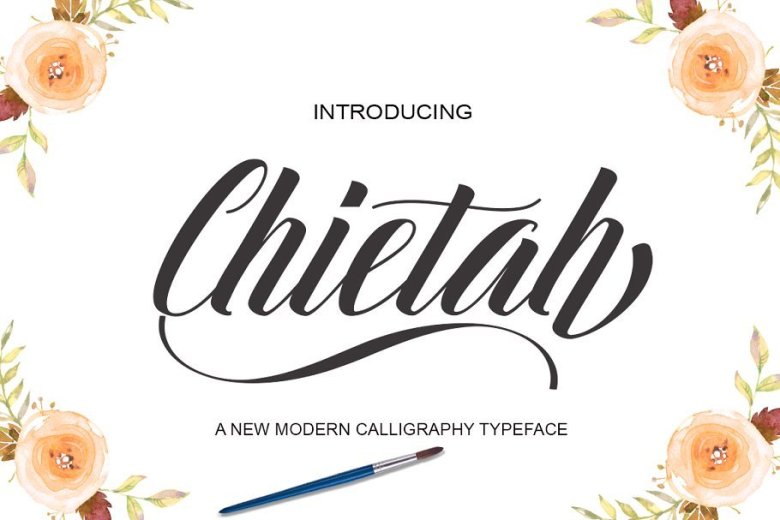
Chietah Calligraphy Font
A beautiful font and texture set. It includes all you need to achieve elegant and feminine designs. Introducing Chietah Font. Chietah is a stylish calligraphy font that features a varying baseline, smooth line, classic and elegant touch. Can be used for various purposes.such as headings, signature, logos, wedding invitation, t-shirt, letterhead, signage, lable, news, posters, badges etc. Chietah Script features 404 glyphs. including initial and terminal letters, alternates, ligatures and multiple language support.